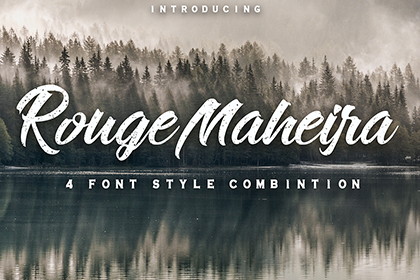
Free Rouge Maheira Font Demo
We're glad to feature this eye-watering free rouge maheira font demo. Free Design Resources has created this amazing and beautiful free font. This is absolutely fancy font so you can easily make world-class designs.